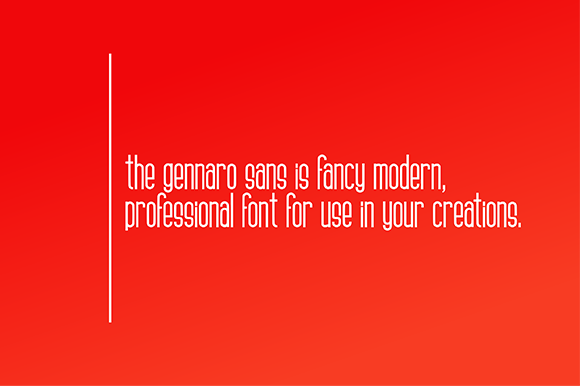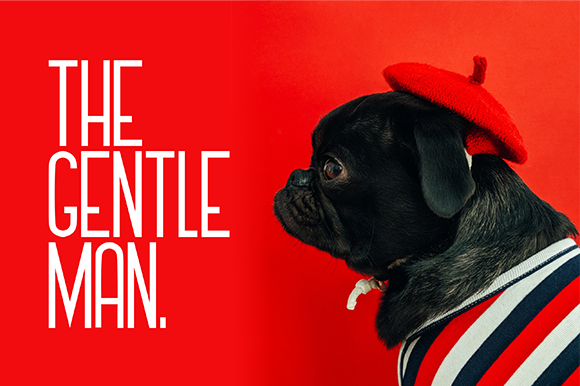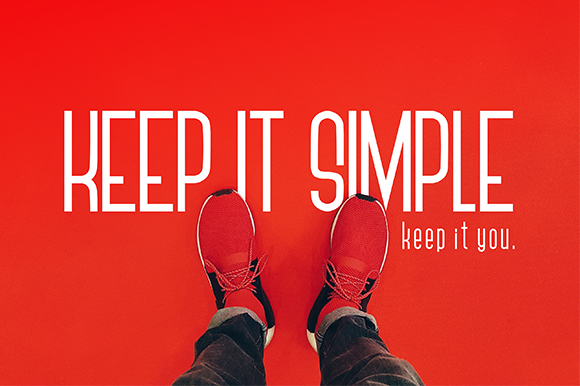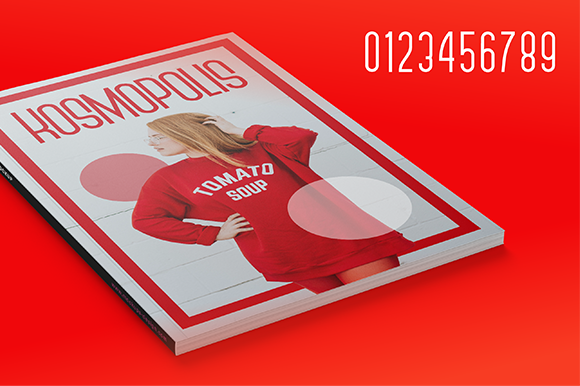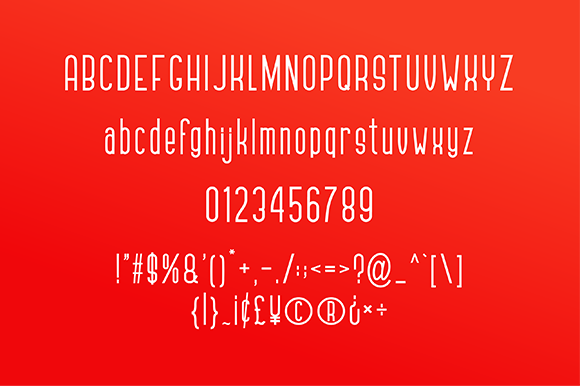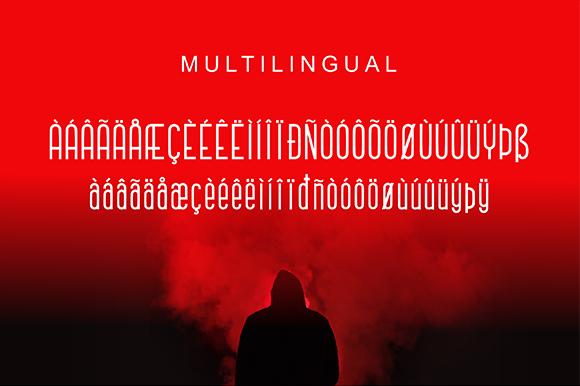
Gennaro Font: Elevate Your Creations with a Modern, Professional Typeface
In the world of design, typography plays a crucial role in conveying messages, expressing creativity, and setting the tone for a brand or project. With countless fonts available, finding the perfect one can be overwhelming. However, if you’re looking for a fancy, modern, and professional font to elevate your creations, look no further than the Gennaro Sans font. In this article, we’ll explore the features, benefits, and uses of the Gennaro font, and why it’s a top choice among designers and crafters.
The Genesis of Gennaro Sans
The Gennaro Sans font is a product of meticulous design and craftsmanship. Its creation was inspired by the need for a clean, elegant, and versatile typeface that can be used across various platforms and applications. Whether you’re working on a logo, brochure, website, or social media graphics, Gennaro Sans is designed to make a lasting impression.
Key Features of Gennaro Sans
So, what makes Gennaro Sans stand out from the crowd? Here are some of its key features:
- Clean and Modern Design: Gennaro Sans boasts a sleek and contemporary design, making it perfect for projects that require a fresh and modern look.
- High Versatility: This font is incredibly versatile, allowing you to use it across various applications, from digital platforms to print materials.
- Professional and Elegant: Gennaro Sans exudes professionalism and elegance, making it an excellent choice for branding, logos, and high-end projects.
- Easy to Read: The font’s clear and legible design ensures that your message is conveyed effectively, even at smaller font sizes.
Benefits of Using Gennaro Sans
By incorporating Gennaro Sans into your design projects, you can enjoy numerous benefits, including:
- Enhanced Visual Appeal: Gennaro Sans adds a touch of sophistication and style to your designs, setting them apart from the competition.
- Improved Brand Consistency: With its clean and modern design, Gennaro Sans helps maintain brand consistency across various platforms and applications.
- Time-Saving: This font is designed to work seamlessly across different devices and browsers, saving you time and effort in the design process.
- Endless Creative Possibilities: Gennaro Sans offers a wide range of creative possibilities, allowing you to experiment with different styles, colors, and layouts.
Who Can Benefit from Gennaro Sans?
Gennaro Sans is an excellent choice for a variety of designers and crafters, including:
- Graphic Designers: Looking for a modern and professional font to elevate their branding and advertising projects.
- Web Designers: Seeking a clean and responsive font for their website and mobile applications.
- Digital Artists: Wanting to add a touch of elegance and sophistication to their digital art and illustrations.
- Crafters and Makers: Needing a versatile font for their craft projects, such as handmade cards, gift tags, and signage.
| Font Name | Gennaro Font |
| Author | figuree studio |
In conclusion, the Gennaro Sans font is an exceptional choice for designers and crafters looking for a modern, professional, and versatile typeface. Its clean design, high versatility, and elegant appearance make it perfect for a wide range of applications, from branding and advertising to digital art and crafting. By incorporating Gennaro Sans into your design projects, you can elevate your creations, enhance your visual appeal, and make a lasting impression on your audience.